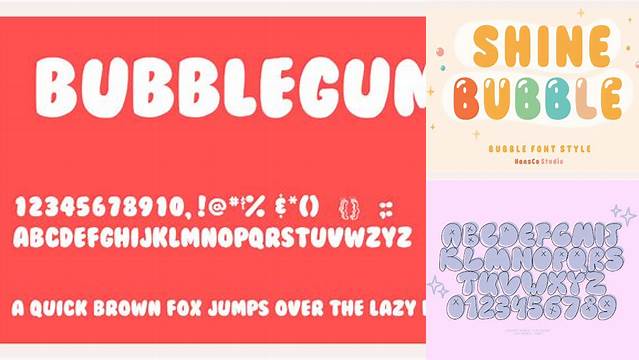
Discovering the World of Free Bubble Fonts
Alright, guys, let's dive headfirst into the fantastic universe of free bubble fonts! You know, those awesome, rounded, often inflated-looking letters that just scream fun, playfulness, and pure joy? That's what we're talking about! Free bubble fonts are truly a designer's best friend when you want to add a dash of whimsy and personality to any project without shelling out a single penny. They’ve got this incredible ability to transform plain text into something vibrant and engaging, making them super popular for everything from kids' party invitations to quirky branding that wants to stand out from the crowd. Think about it: a logo that feels like a hug, a poster that makes you smile, or a social media graphic that just pops! The sheer variety of bubble letter fonts free for download is mind-blowing, meaning there’s a perfect bubbly style out there for literally everyone. You don't need a huge budget to make your designs look professional and super cool; you just need to know where to find these amazing free bubble fonts. They instantly grab attention and imbue your message with a unique, approachable vibe. Many of these fantastic options even come with decent licensing, often allowing for personal use, and sometimes even commercial projects, which is a massive win for creators working on a budget. So, if you’re looking to inject some serious character and a touch of lightheartedness into your work, sticking with free bubble fonts is a stellar choice. They truly embody a creative spirit, offering an immediate visual impact that's hard to beat. Let's get ready to make your text bouncier than ever!
The Allure of Bubble Letter Fonts Free for Download
There’s a special kind of magic, folks, when you discover the sheer availability of bubble letter fonts free for download. It’s not just about saving money – although that’s a huge plus! It's about accessibility, the instant gratification of finding the perfect font, and the freedom to experiment without commitment. These free bubble letter fonts are sought after precisely because they offer a fantastic way to achieve that soft, rounded, and wonderfully inflated look for your text, all without any financial barriers. Imagine you're working on a school project, a personal blog, or even a small business concept; having access to a treasure trove of high-quality free bubble fonts means you can elevate your design instantly. The process is usually super simple: a quick search, a click to download, and boom – you’ve got a new artistic tool at your fingertips. This ease of use makes them ideal for budding designers, enthusiastic hobbyists, and even seasoned pros who are looking for that specific, playful aesthetic. You'll find them shining brightly in invitations, cheerful posters, captivating social media graphics, and branding efforts that aim for a friendly, approachable feel. And here’s the kicker: just because something is free doesn't mean it sacrifices quality. Nope! Many talented independent designers generously share their stunning bubble fonts, and these creations often rival their premium counterparts in terms of design, versatility, and sheer charm. It's all about knowing where to look and being open to exploring the vast ocean of creativity that awaits you. So, get ready to download, because these bubble letter fonts free are calling your name!
Unleashing Creativity with Cute Bubble Fonts Free
When your design calls for an extra sprinkle of charm and undeniable sweetness, that’s when cute bubble fonts free really step up to the plate, guys. These are the fonts that bring an adorable, whimsical, and utterly endearing quality to your text, making everything they touch feel warm and inviting. Imagine crafting baby shower invitations that melt hearts, designing logos for a delightful bakery, or creating content for a children's book that radiates innocence and joy – these cute bubble fonts free are your secret weapon. Their rounded, soft forms evoke feelings of happiness, simplicity, and a lighthearted playfulness that instantly resonates with viewers. They’re perfect for projects aimed at younger audiences, like creating engaging learning materials or decorating a nursery with charming quotes. But their appeal isn't limited to kids' stuff; they can also bring a sweet, approachable vibe to branding for artisanal products, craft businesses, or any endeavor that wants to project a friendly and gentle image. You'll find a delightful spectrum of cute bubble fonts: some are perfectly plump and symmetrical, others boast little decorative elements like stars or tiny hearts, and many beautifully blend that handwritten touch with a bubbly, soft finish. The key is finding that just-right level of adorable sweetness that perfectly complements your vision, ensuring your message is not only seen but also felt. So, if your goal is to inject some genuine cuteness into your next design, definitely explore the fantastic range of cute bubble fonts free for download – you won’t be disappointed!
Exploring Playful Bubble Fonts for Dynamic Designs
Alright, folks, if you're looking to inject a serious dose of energy and fun into your creative projects, then diving into the world of playful bubble fonts is an absolute must! These aren't just any old typefaces; they're vibrant, dynamic, and designed to make your text bounce right off the page, grabbing attention with their infectious enthusiasm. Playful bubble fonts are all about breaking free from the rigid confines of traditional typography and embracing a more lighthearted, energetic, and utterly fun approach to design. They're perfect for creating a sense of movement, excitement, and informality, making them ideal for everything from high-energy event flyers and lively party invitations to engaging game interfaces and youth-oriented marketing campaigns. Unlike fonts that are solely